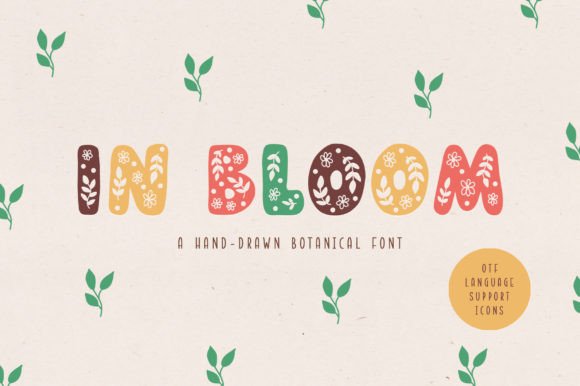
Welcome to a blossomed journey of artistic expression with In Bloom, the enchanting decorative font that breathes life into your creative endeavors. Designed with meticulous craftsmanship by joliverdesigns, this captivating font family is an oasis of beauty, beckoning you to embrace the wonders of nature within every letterform.
Venture into a world where flora and fauna intertwine harmoniously, where each letter is an intricate tapestry of botanical inspiration. In Bloom is an extraordinary display font that will transform your words into a mesmerizing dance of nature's artistry. Its organic shapes and delicate flourishes infuse your projects with an aura of elegance and charm.
Unleash your imagination and let In Bloom's magic touch elevate your greeting cards, invitations, and merchandise into exquisite masterpieces. Its versatility knows no bounds, effortlessly complementing journals, headers, and any design project that calls for a touch of whimsy and sophistication.
Discover the endless possibilities that await you as you immerse yourself in In Bloom's captivating realm. From the gentle whispers of morning dew to the vibrant hues of a blooming meadow, this font captures the essence of nature's symphony, inviting you to create designs that resonate with the beauty and wonder of the world around us.
Join the chorus of creatives who have embraced In Bloom's allure, allowing their projects to blossom with captivating charm. Experience the joy of creating designs that leave a lasting impression, where every word carries the fragrance of a thousand flowers and the enchanting whisper of nature's embrace.